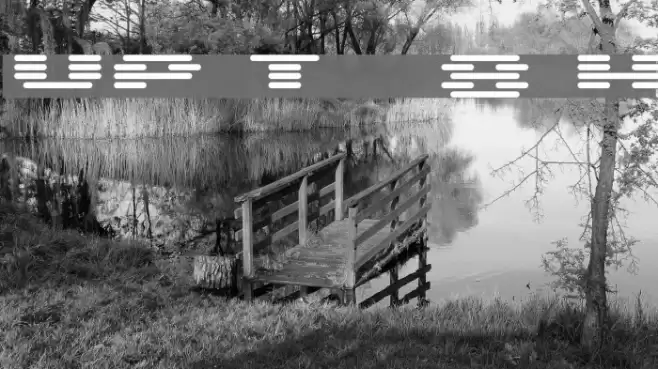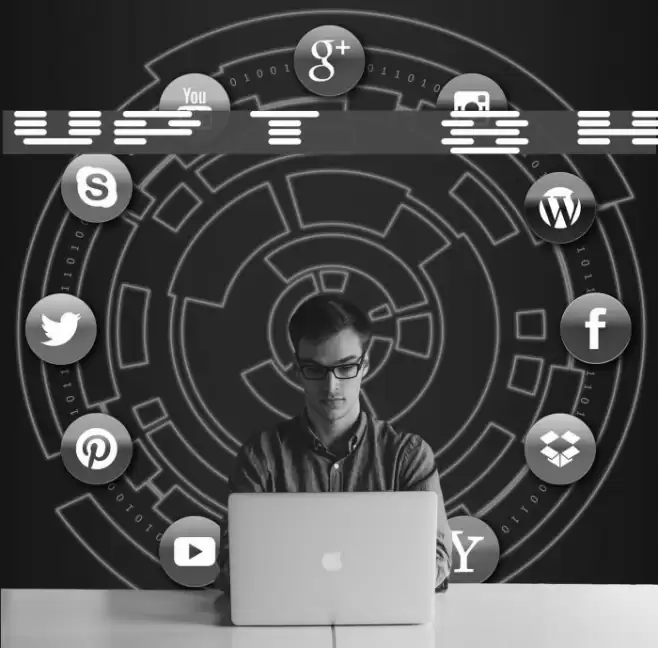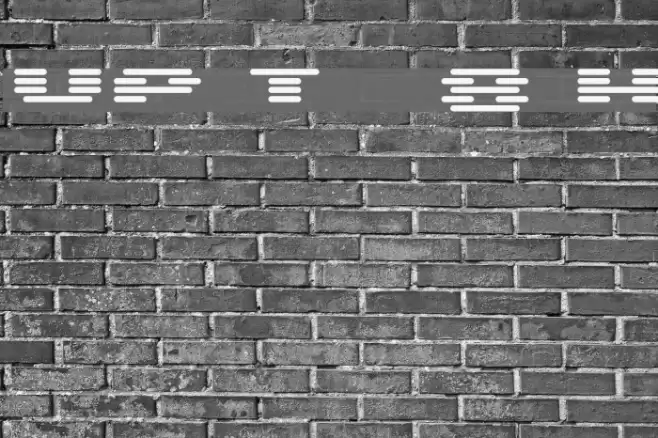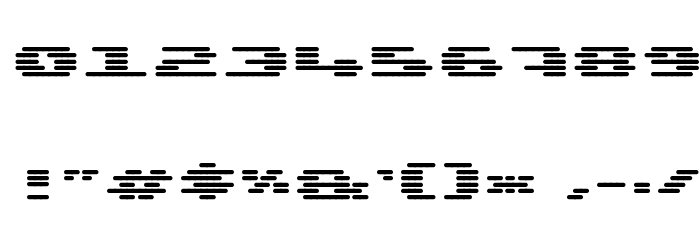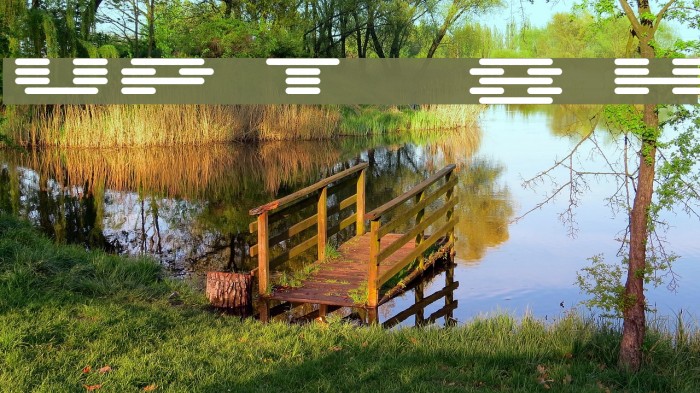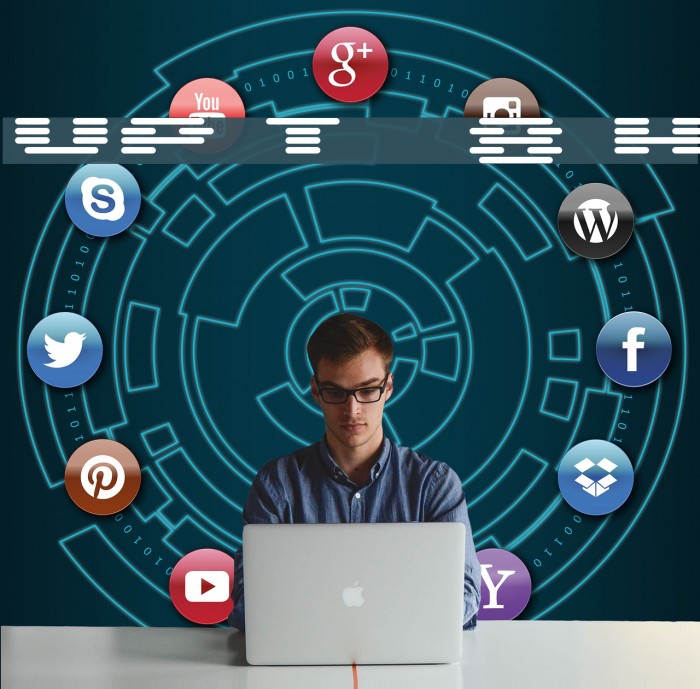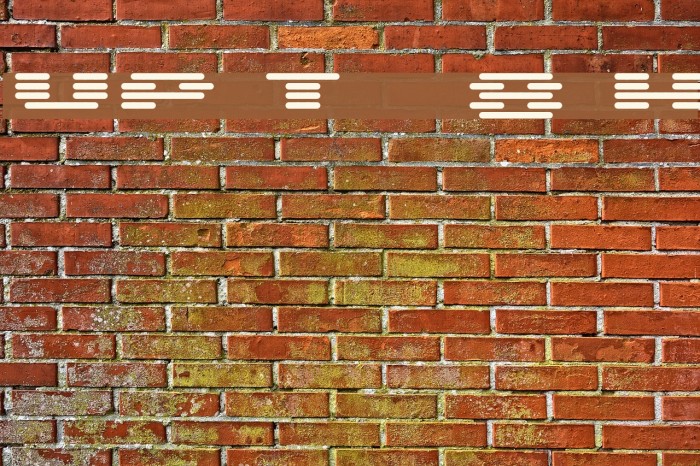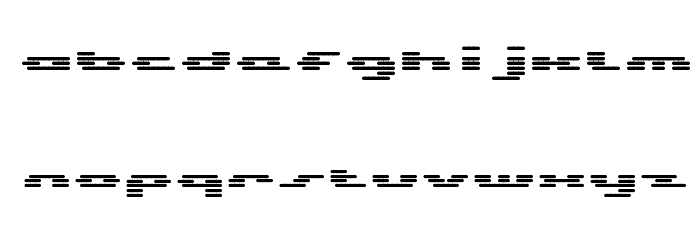
UP Tiny lcd four 8 decoH Font
UP Tiny lcd four 8 decoH Description
This font features a unique, segmented design reminiscent of digital displays or LCD screens. Each character is constructed from a series of horizontal lines and dots, creating a futuristic and tech-inspired aesthetic. The uppercase and lowercase letters maintain a consistent style, with clear distinctions between each character. Numbers and special characters follow the same segmented pattern, ensuring uniformity across all glyphs. The font's distinct appearance makes it ideal for projects that require a modern, digital look.
A segmented, digital-style font with a futuristic aesthetic from Pixel fonts.
- Proposed Projects: Ideal for digital interfaces, tech-themed posters, video game graphics, and futuristic branding.
- Use Case: Headlines, Logos, Digital displays